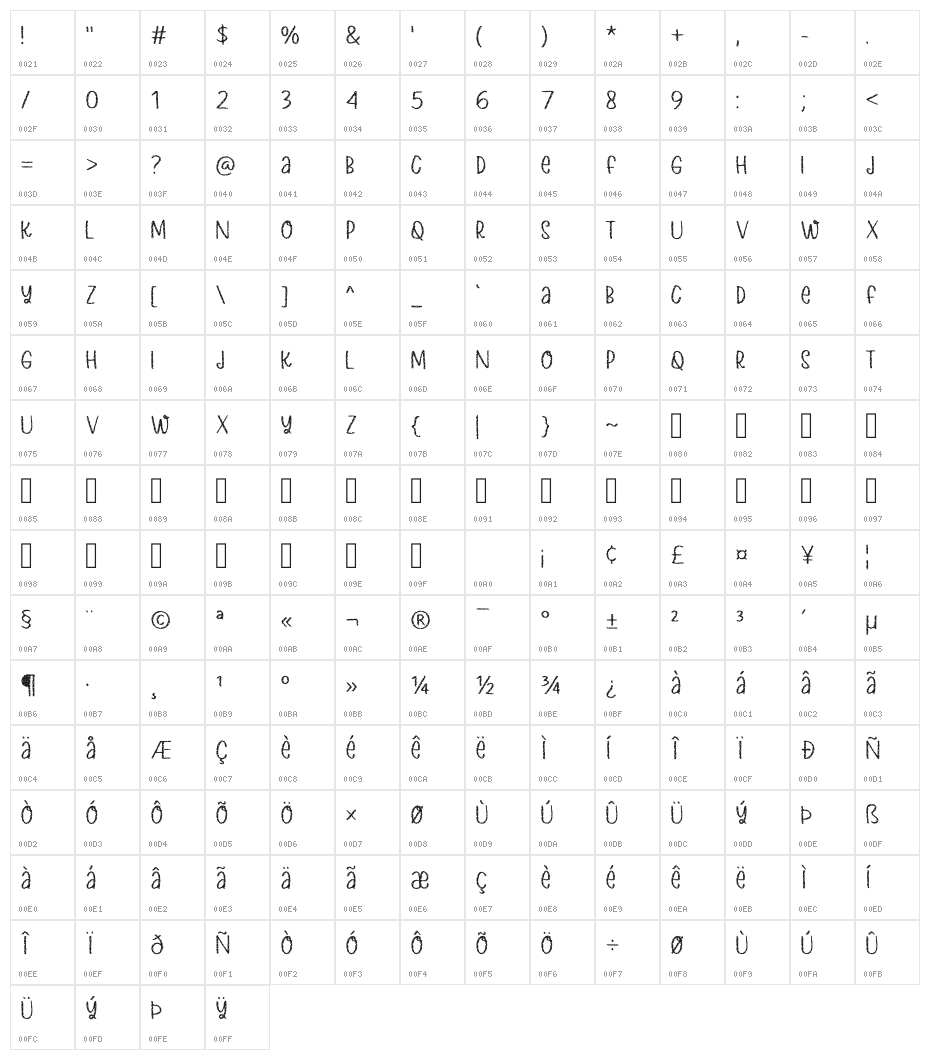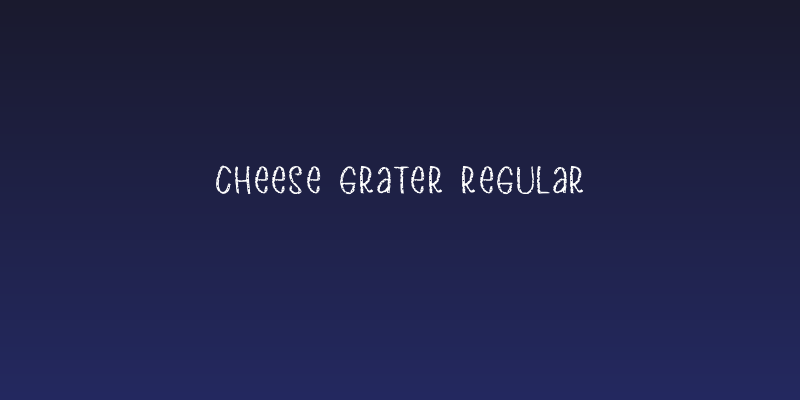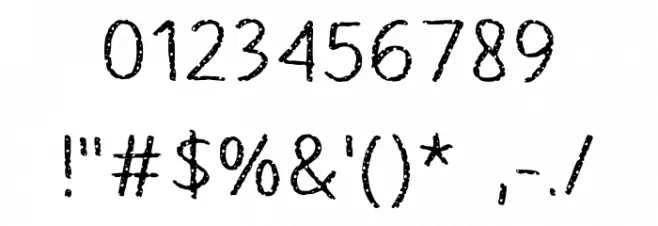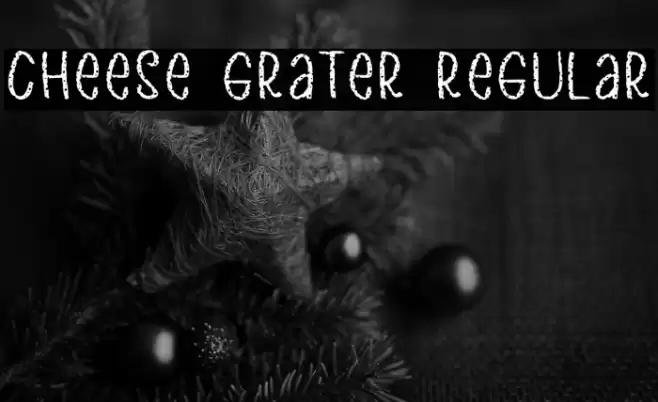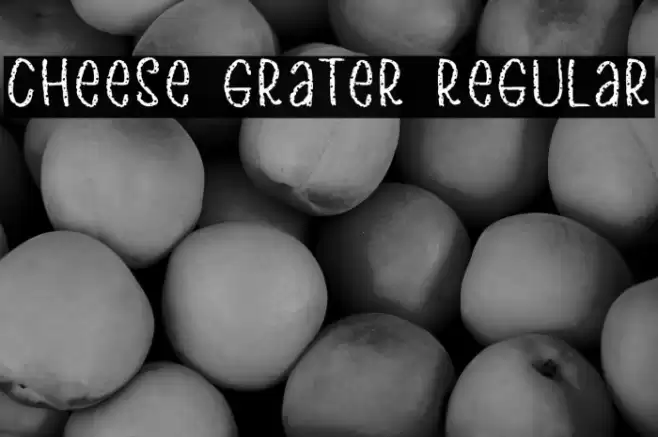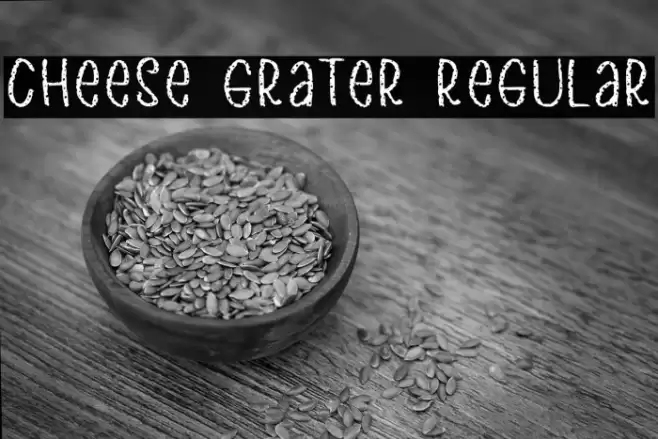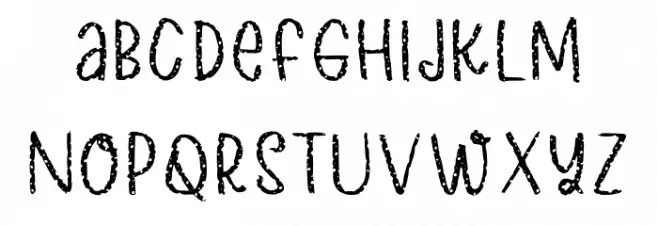
Cheese Grater Regular Font
Cheese Grater Regular Description
This font features a playful and textured design, reminiscent of a hand-drawn style with a unique grater-like effect. The characters have a rough, uneven surface that adds a tactile quality, making it stand out in any design. The uppercase and lowercase letters maintain a consistent style, with rounded edges and a slightly irregular form that enhances its casual and approachable appearance. The numerals and special characters follow the same aesthetic, ensuring a cohesive look across all text elements. This font is ideal for projects that require a fun and informal touch.
| Proposed Projects | Ideal for children's books, playful branding, casual invitations, and creative posters. |